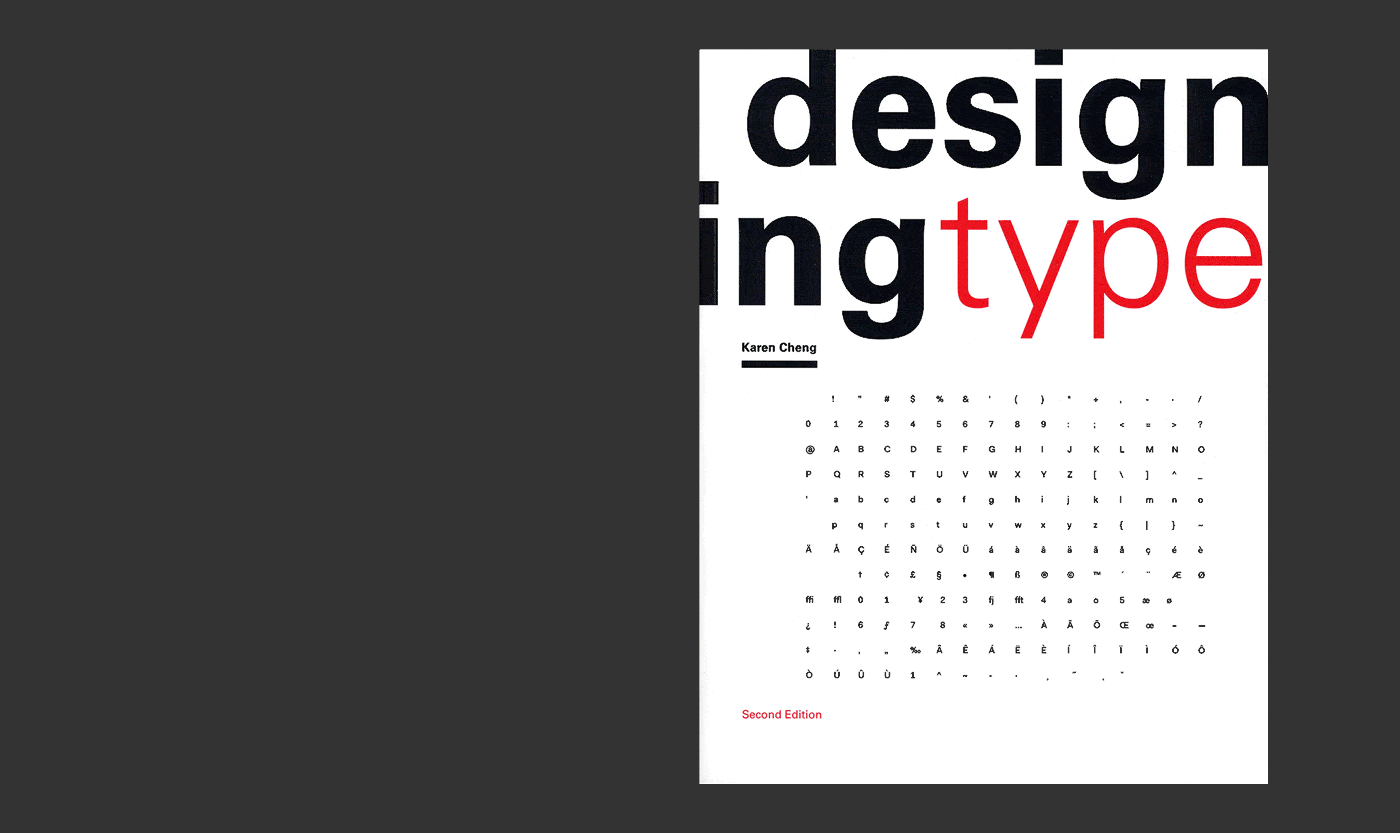
Designing Type: The More I Learn, The Less I Know: Karen Cheng
Designing Type has been described as a highly rational guide to the anatomy of letters. In this talk, author Karen Cheng will explain her obsessive interest in dissecting type, and describe her efforts—both successes and failures—to create the “perfect” introductory course to type design.
Karen Cheng is Professor of Visual Communication Design at the University of Washington in Seattle. She is the author of Designing Type, which (as of October 2020) is available in a new, fully revised and redesigned edition.